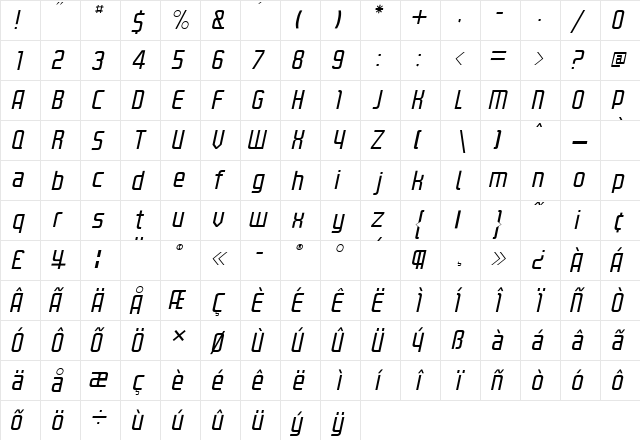
Kanal Light Italic Font Preview
Design Context for Kanal Typeface
Kanal takes a measured approach to typography — its balanced proportions and neutral character make it a reliable workhorse for both digital and print work. The dynamic lean of this cut emphasises speed and emphasis in any layout. Its slender proportions lend an understated elegance to any composition.
Pro Tip: Try Kanal for annotation and caption copy alongside an upright companion — the contrast in angle creates a dynamic but ordered typographic system.